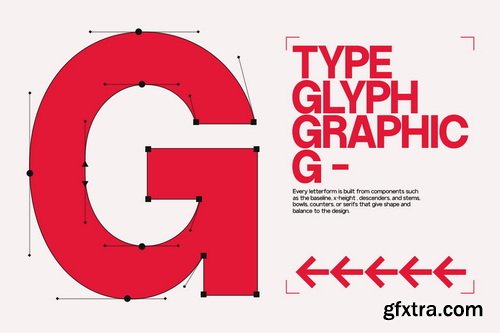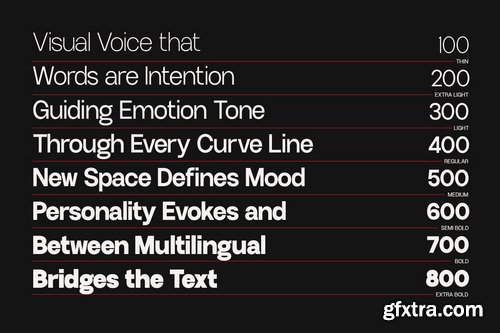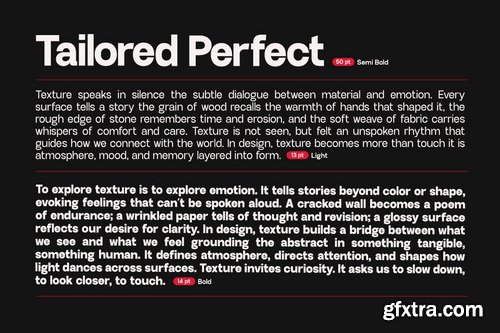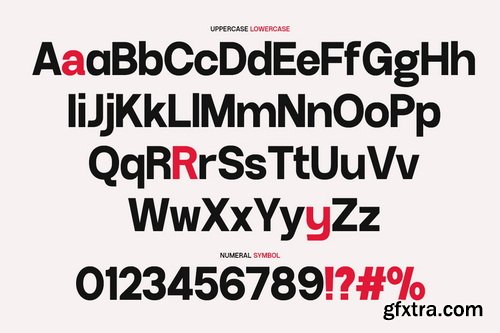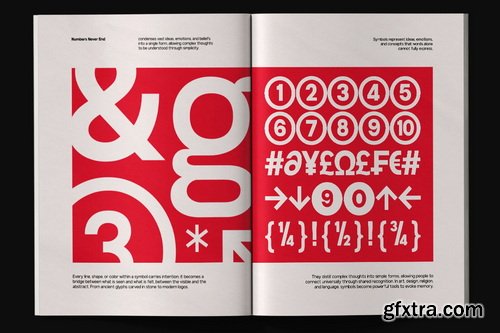
CreativeMarket - GC Avalance Neo Modern Typeface - 8 Font
- GC Avalance – Neo Modern Typeface is a contemporary sans serif font family crafted for precision, balance, and versatility. With its clean geometric structure and smooth proportions, GC Avalance delivers a bold yet refined voice that adapts seamlessly across digital and print design. Designed for clarity in motion and stillness, it brings modern sophistication to any creative project.